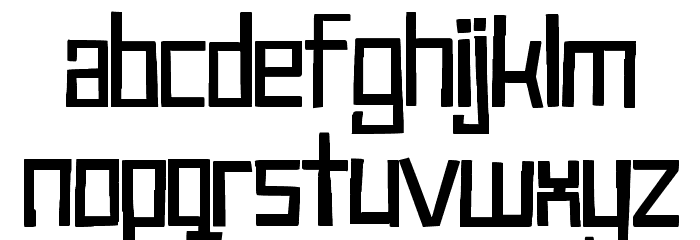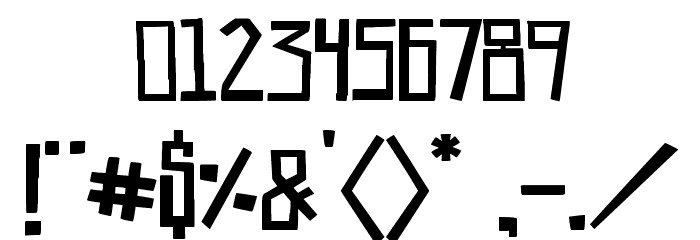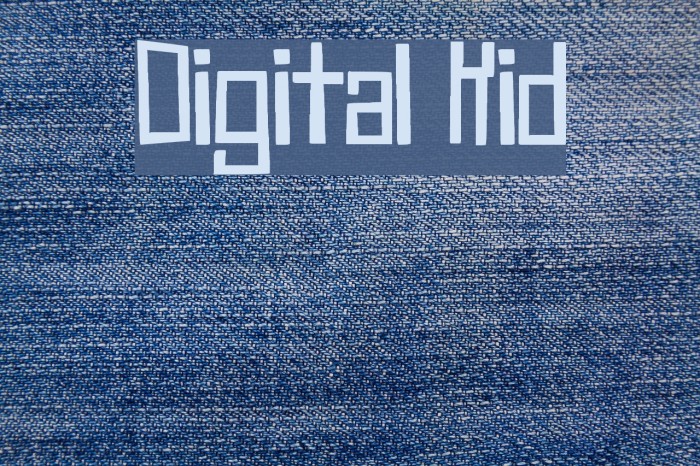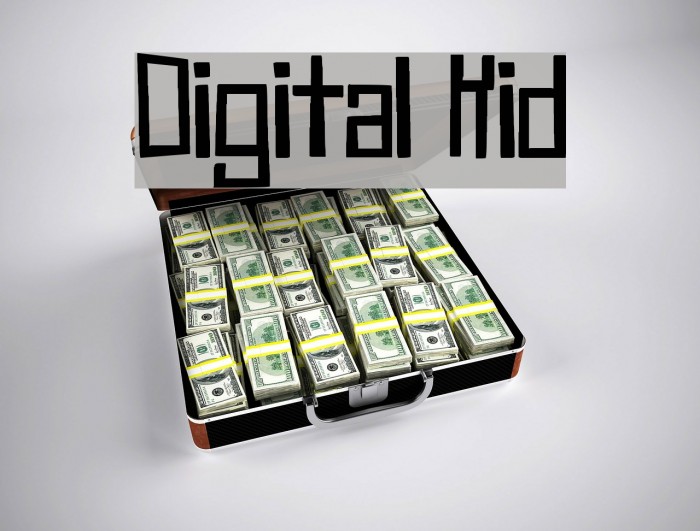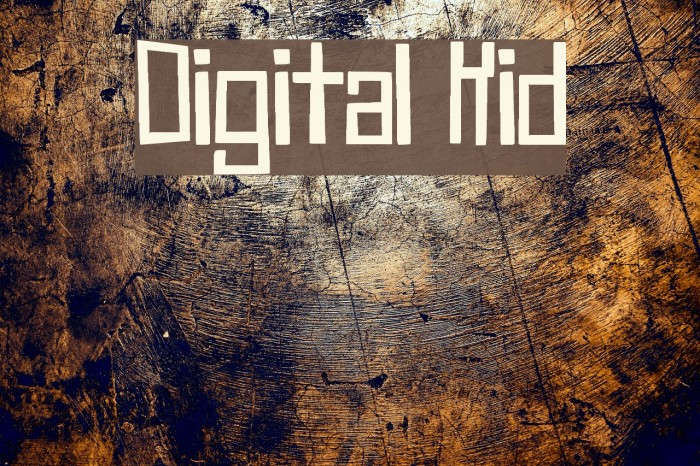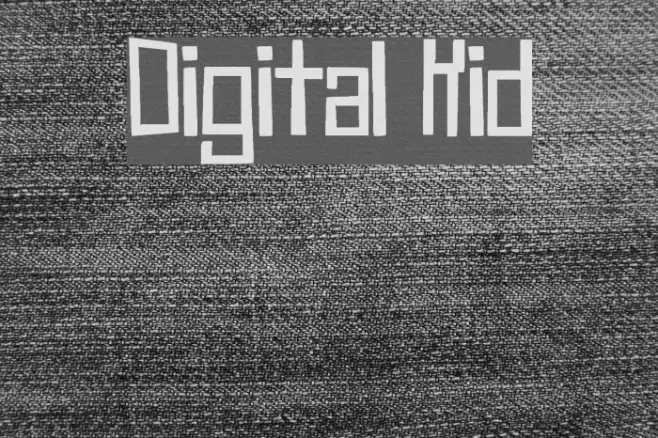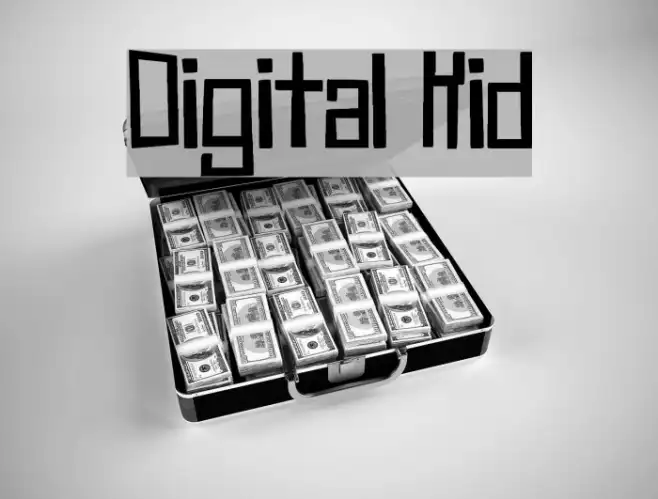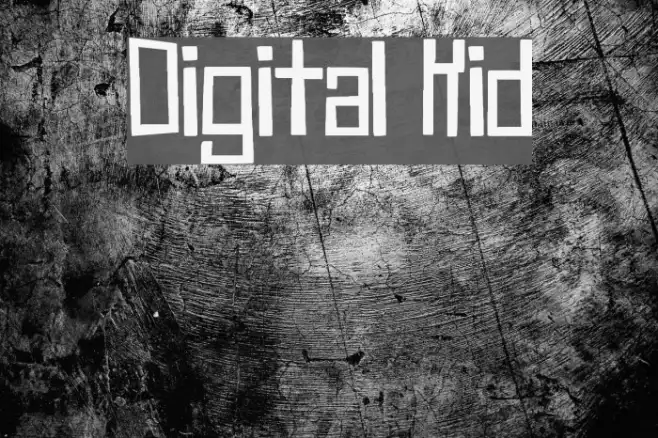
Digital Kid Font
This font features a bold, geometric style with a digital, futuristic aesthetic. The characters are constructed with straight lines and sharp angles, giving it a blocky, pixelated appearance reminiscent of early digital displays or retro video games. The uppercase and lowercase letters maintain a consistent height, creating a uniform look across the alphabet. Numbers and special characters follow the same design principles, ensuring a cohesive visual identity. The font's unique style makes it stand out, ideal for projects that require a modern, tech-inspired look.
A bold, geometric font with a digital, futuristic style.
- Proposed Projects: Ideal for tech-themed designs, video game graphics, digital art projects, and modern branding.